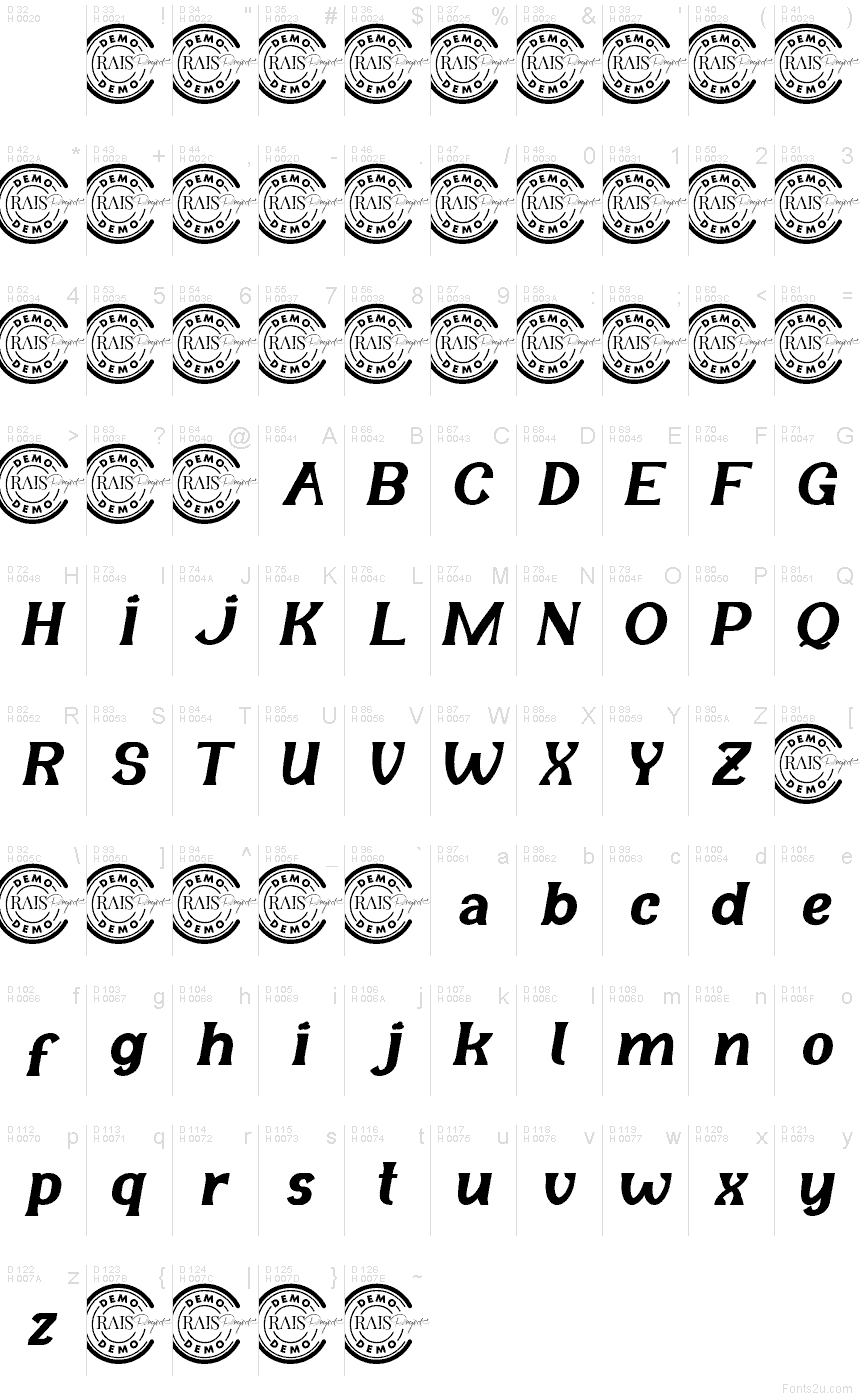
Nihiwatu Demo Italic
Nihiwatu Italic font designed by RaisProject is a bold and dramatic typeface with a classic aesthetic. Its vintage feel adds elegance to any project, making it a striking choice for various design needs. This free display font captures an artful design that ensures your work stands out with its powerful and distinctive look.
Easily use Nihiwatu Italic for logos, posters, book covers, advertisements, article headlines, or product packaging. Its elegant style fits perfectly in quotes, social media posts graphics or visuals and even on monument inscriptions where classiness takes over the spotlight of every piece it is involved in.